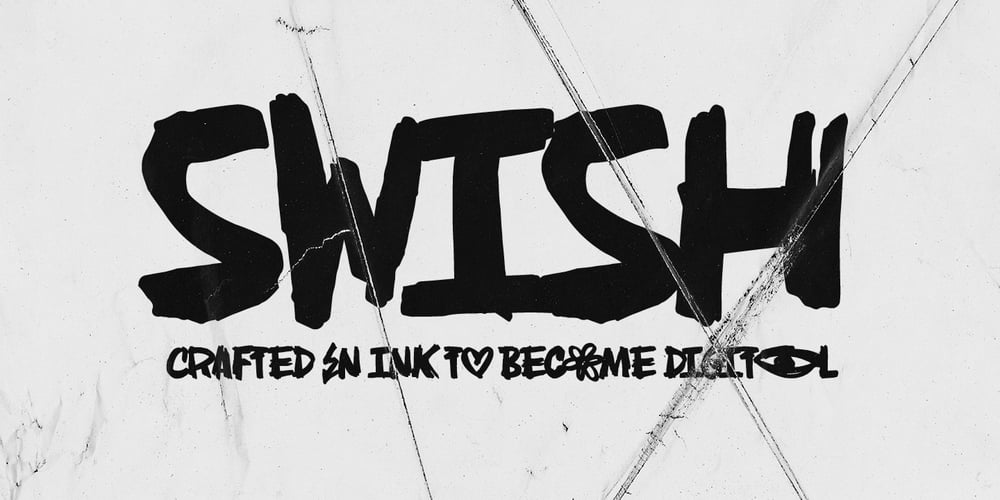
AN Swish Font Family was designed by Anosov Vladimir and published by Anonymous Typedesigners. AN Swish contains 1 styles and family package options. An Swish is a unique handwritten font. Crafted in ink to become digital. Initially it was created as a kind of textural filling of spaces – walls, posters, clothes. In the process of creation, it became clear that it can solve different problems. It can become a logo or a great solution for identity. With the apparent density of the set and the negligence of the forms, it remains quite readable. It can work with different spacing options. There is a feature in the font that changes the second character when two identical letters meet. Also added icons (lightning, heart, eye) that can decorate your projects.